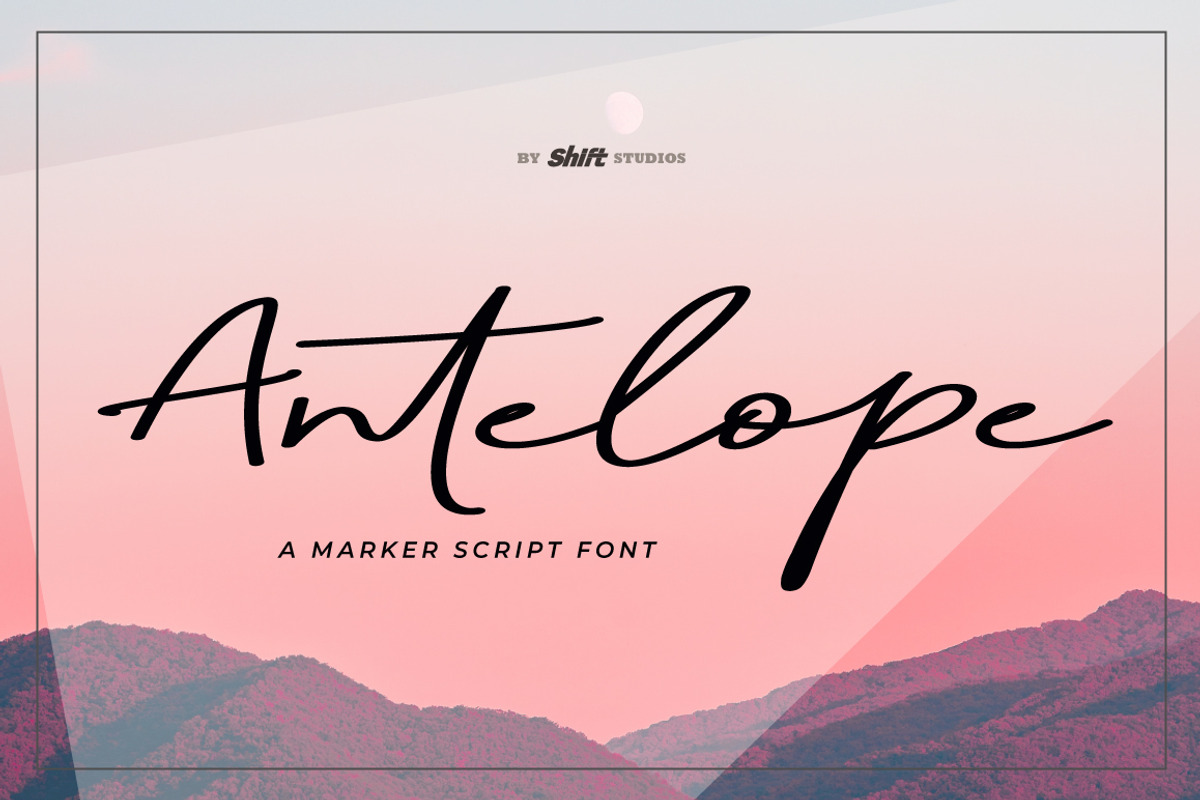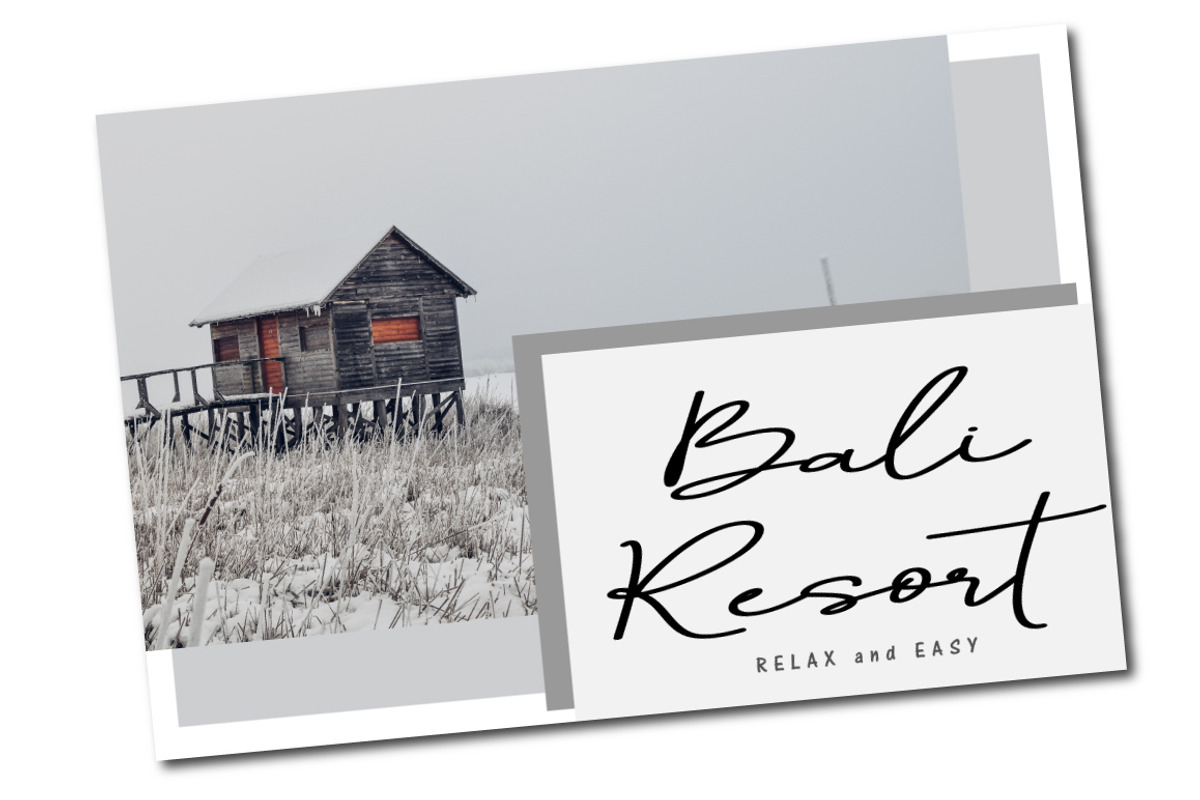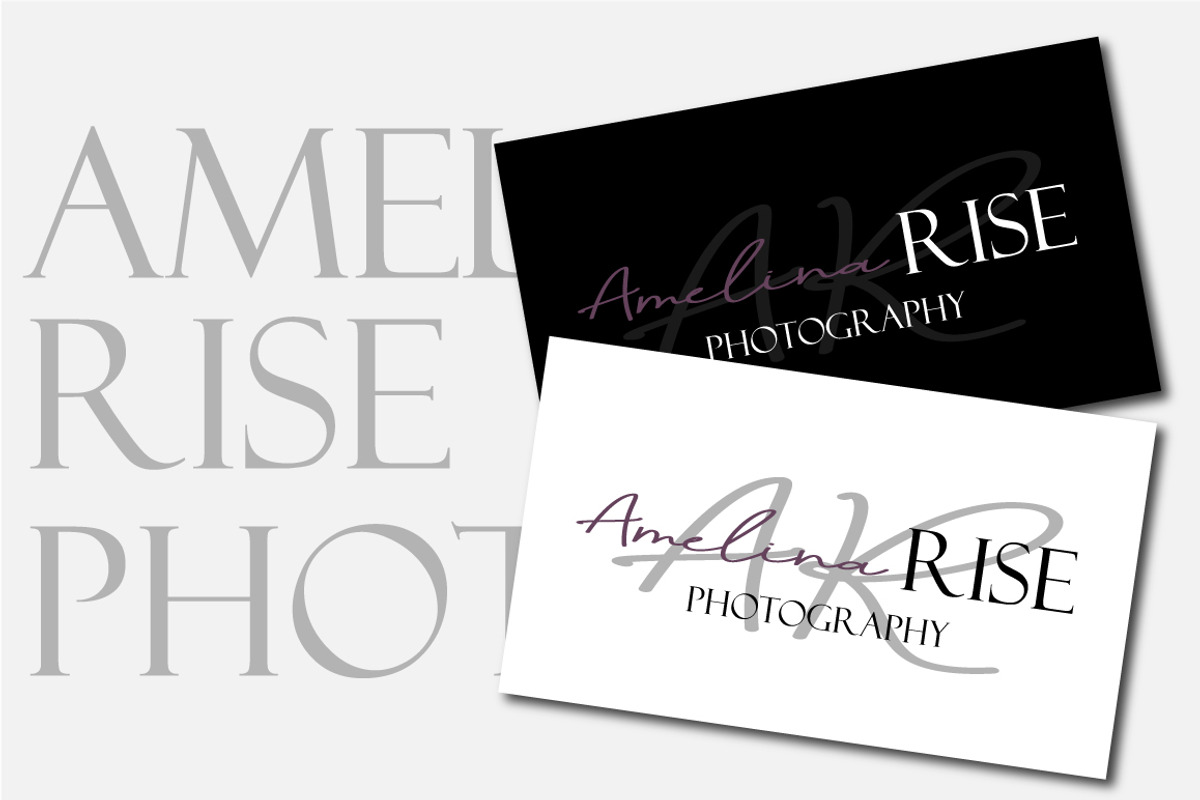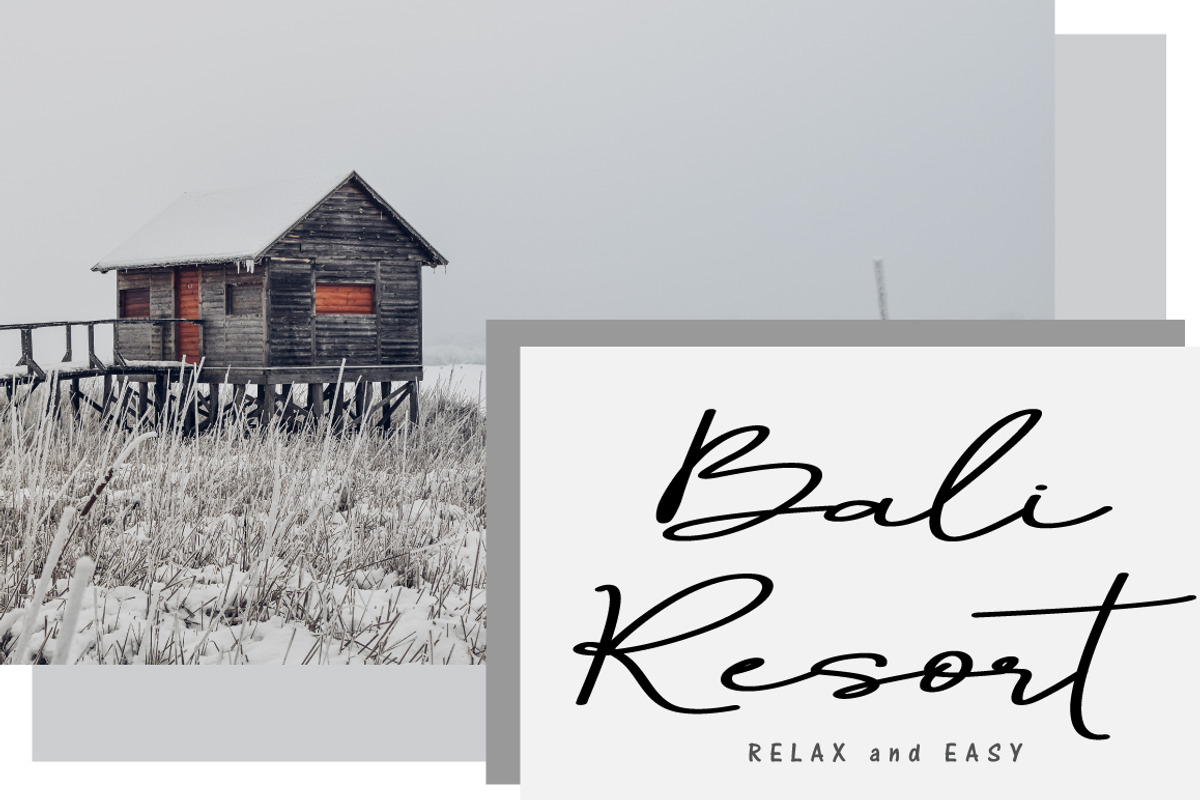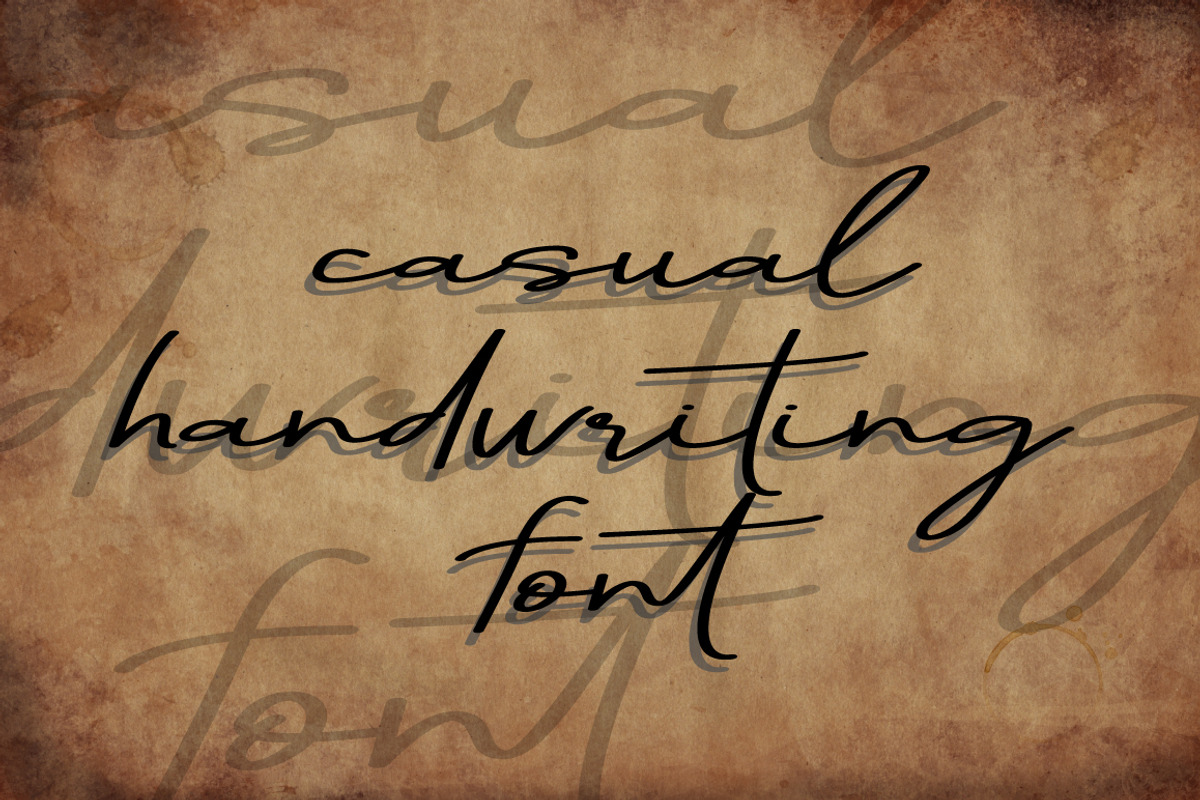
Antelope Font
Antelope font is a bouncy script marker style. This script font specifically established for beautiful and elegant handwriting looks and perfect also for your special branding.
Perfect for displays, headers, invitations, blogs, poster and so much more, Antelope will become a lively essential in your font collection!